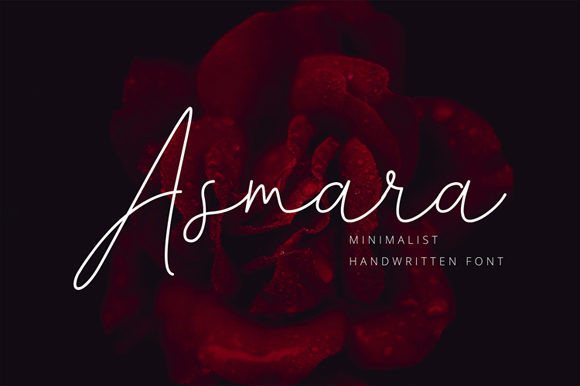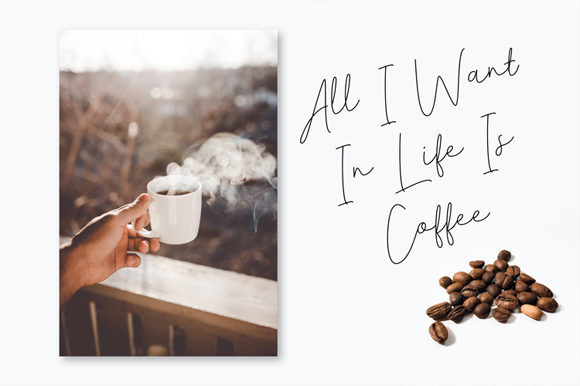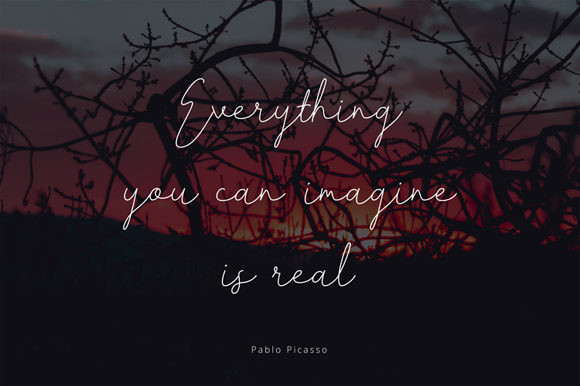
Asmara Font
Asmara FontAsmara is a beautiful handwritten font. It has a clean, thin and smooth vibe and it will be a hit for any design that you want to add it to.